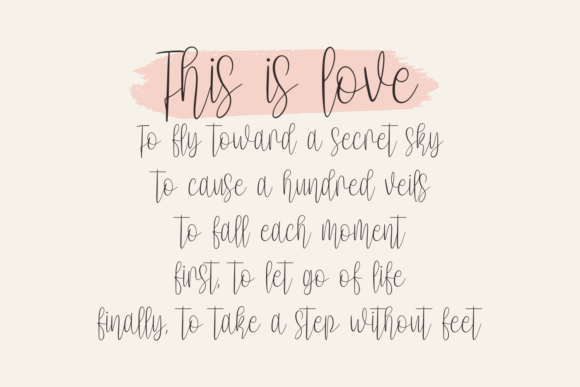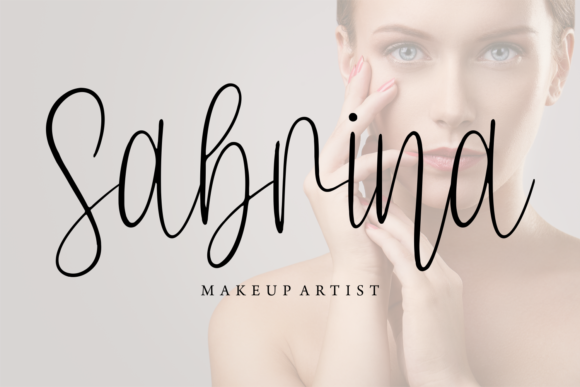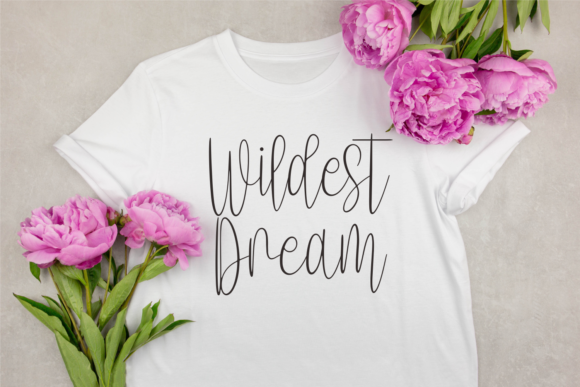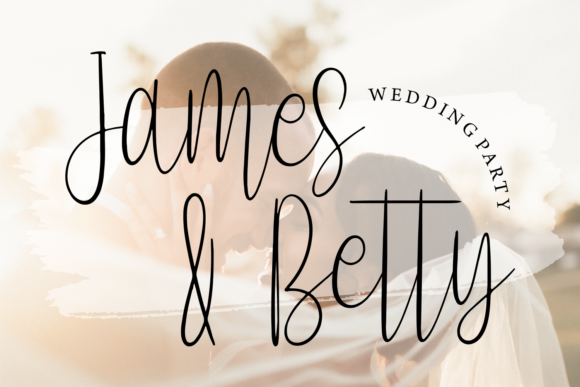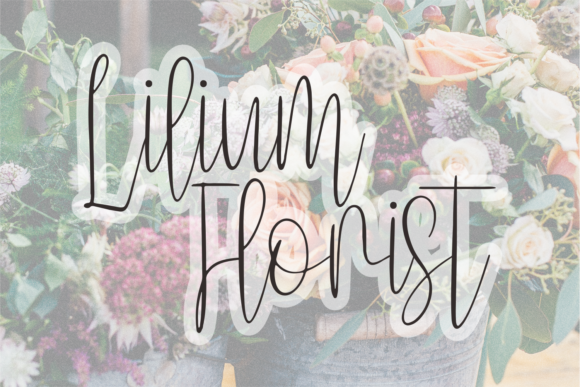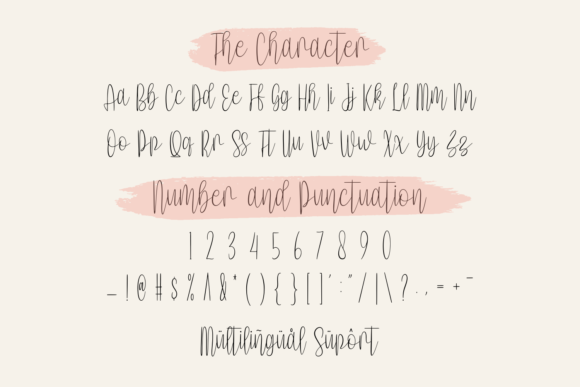
Introduction to Olasido Sweet Font
As designers, we’ve all been there – staring at a blank canvas, struggling to find the perfect font to bring our creative vision to life. And then, like a breath of fresh air, you stumble upon a game-changer. For me, that moment came when I discovered the Olasido Sweet Font. Its delicate, cursive characters are a dream to work with, and I knew instantly that it would elevate my designs to new heights.
What makes Olasido Sweet Font truly special is its versatility. Whether you’re working on a high-end branding project or a personal creative endeavor, this font is the perfect design resource. With its high-quality characters and transparent background, you can trust that your designs will look professional and polished.
Key Features of Olasido Sweet Font
- Unique, cursive script font perfect for creative projects and design resources.
- Perfect for adding a touch of elegance and sophistication to any project, including wedding invitations, quotes, and more.
- Designed to be highly legible and visually appealing, even at small font sizes.
Honest Review: Olasido Sweet Font
I recently came across the Olasido Sweet Font and I’m excited to share my thoughts on this design resource. Overall, I’m impressed with its high quality and versatility.
What works well: ✨ The Olasido Sweet Font has a beautiful, hand-drawn feel that’s perfect for creative projects. The font is also highly customizable, allowing you to adjust the size, color, and style to suit your needs. The transparent background feature is also a nice touch, making it easy to use in various design contexts.
Key features:
- High-quality, hand-drawn design
- Customizable font styles and sizes
Limitations: ⚠️ While the Olasido Sweet Font is a great resource, it’s not suitable for all design projects. The font’s casual, handwritten style may not be the best fit for formal or corporate designs. Additionally, the font’s size and weight may not be as consistent across different devices and platforms.
Overall, I’m impressed with the Olasido Sweet Font and would recommend it for creative projects, such as social media graphics, blog posts, and marketing materials. With its high quality, customizability, and free download option, it’s a valuable design resource to have in your toolkit.
Tips for Getting the Most Out of Olasido Sweet Font
To get the most out of Olasido Sweet Font, experiment with different font sizes, colors, and combinations. This versatile font is perfect for creative projects, such as invitations, posters, and social media graphics. Don’t be afraid to push the boundaries and try new things.
Olasido Sweet Font is ideal for a wide range of projects, including wedding invitations, baby shower decorations, and holiday cards. Its playful and whimsical nature makes it perfect for adding a touch of personality to your designs.
Alternatives to Olasido Sweet Font
Lato is a popular high-quality font suitable for various creative projects. It’s ideal for use in web design, print materials, and digital interfaces. This font is available for free download and features a clean, modern design with a transparent background.
Lato compares to Olasido Sweet Font by offering a more minimalist and sans-serif approach, making it perfect for modern design projects. While Olasido Sweet Font has a sweeter, more elegant feel, Lato is ideal for projects requiring a clean and sophisticated look.
Arimo Font
Arimo is a free download font that provides a high-quality design resource for various creative projects. It’s suitable for use in web design, print materials, and digital interfaces. This font features a clean and modern design with a transparent background, making it ideal for projects requiring a professional look.
Does the Olasido Sweet Font have a transparent background?
No, the Olasido Sweet Font does not have a transparent background. However, you can easily create a transparent background using image editing software like Adobe Photoshop or GIMP.